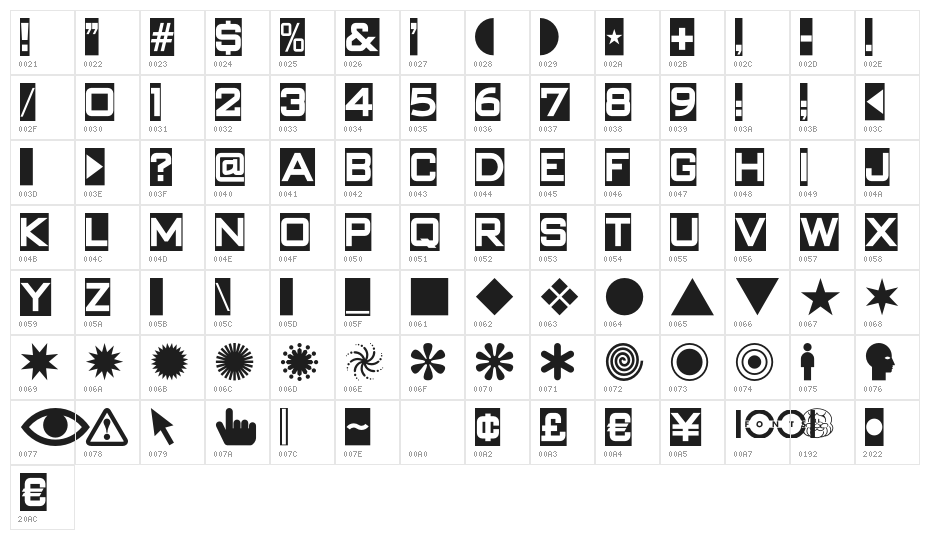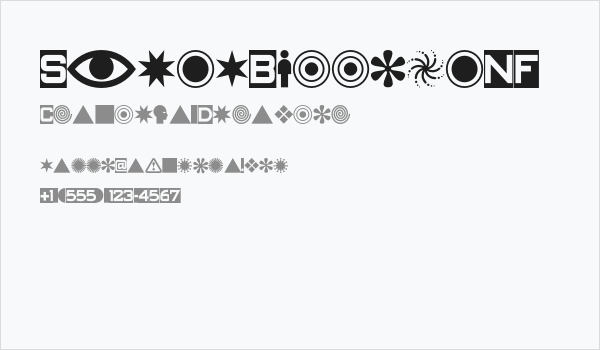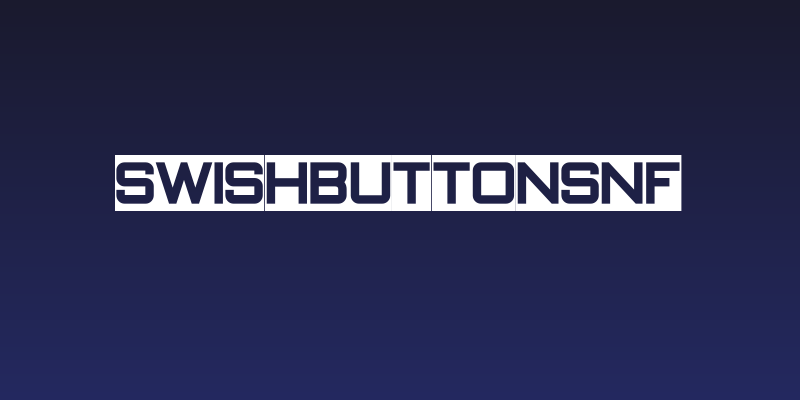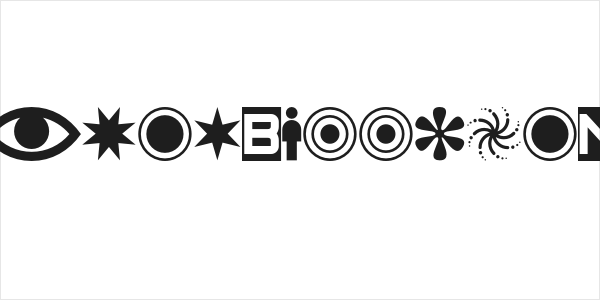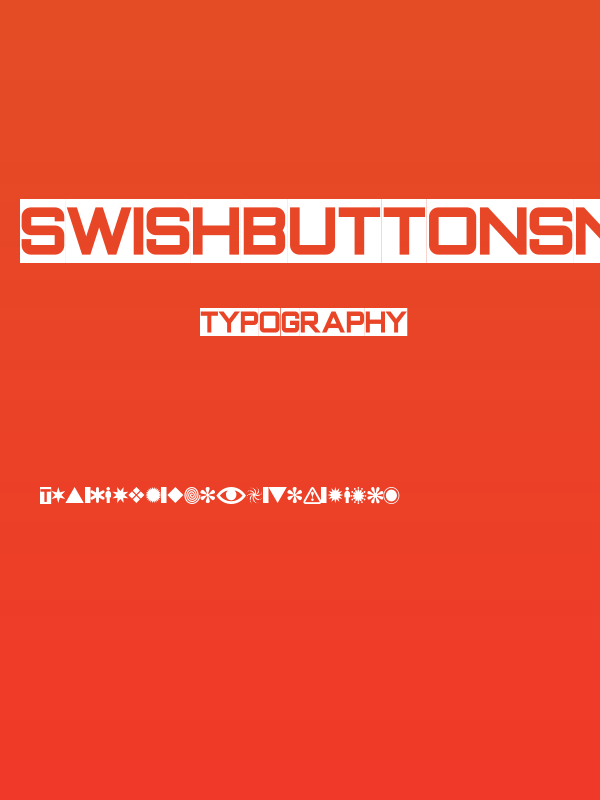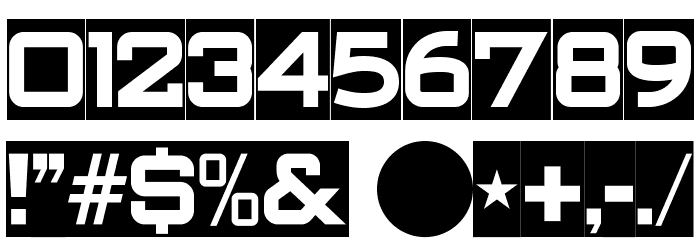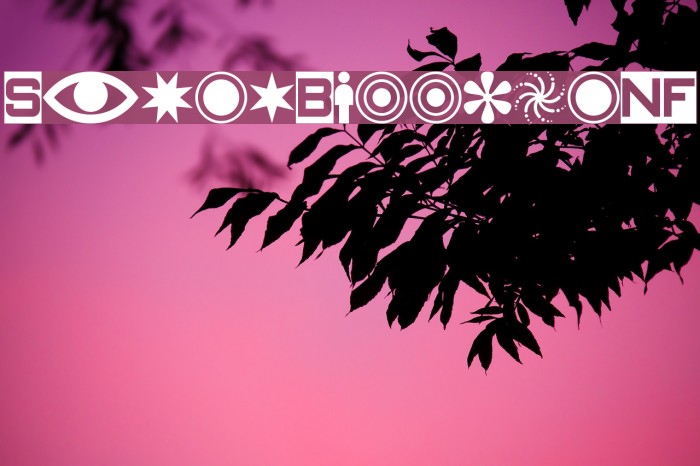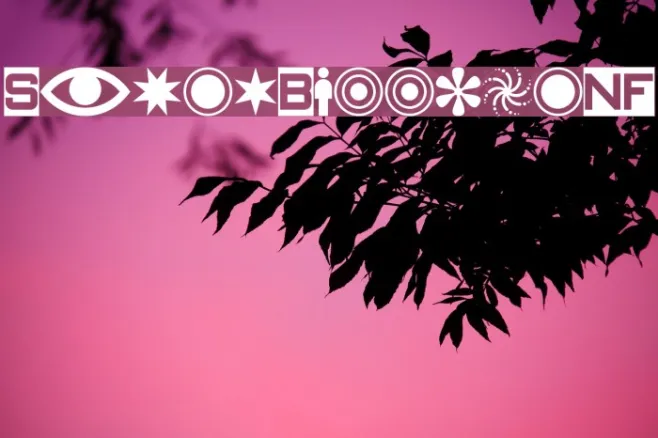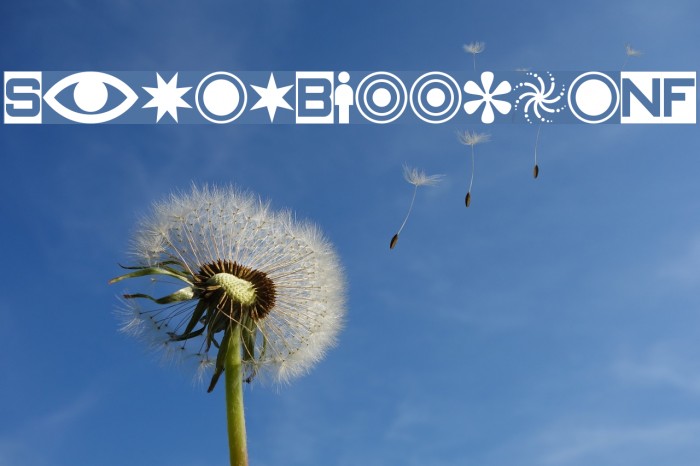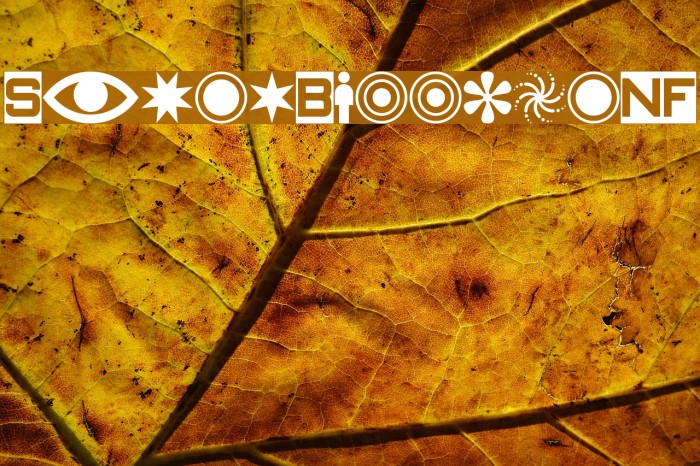
SwishButtonsNF Font
SwishButtonsNF Description
This font features a bold, geometric design with a strong emphasis on symmetry and structure. Each character is enclosed within a square, creating a uniform and cohesive appearance. The uppercase letters are crafted with sharp angles and clean lines, giving a modern and futuristic feel. The numbers and special characters maintain this geometric style, ensuring consistency across all elements. The font includes a variety of unique symbols and shapes, adding versatility and creative potential. Its boldness and distinct style make it ideal for attention-grabbing designs.
| Proposed Projects | Ideal for branding, posters, signage, and digital media where a strong visual impact is desired. |